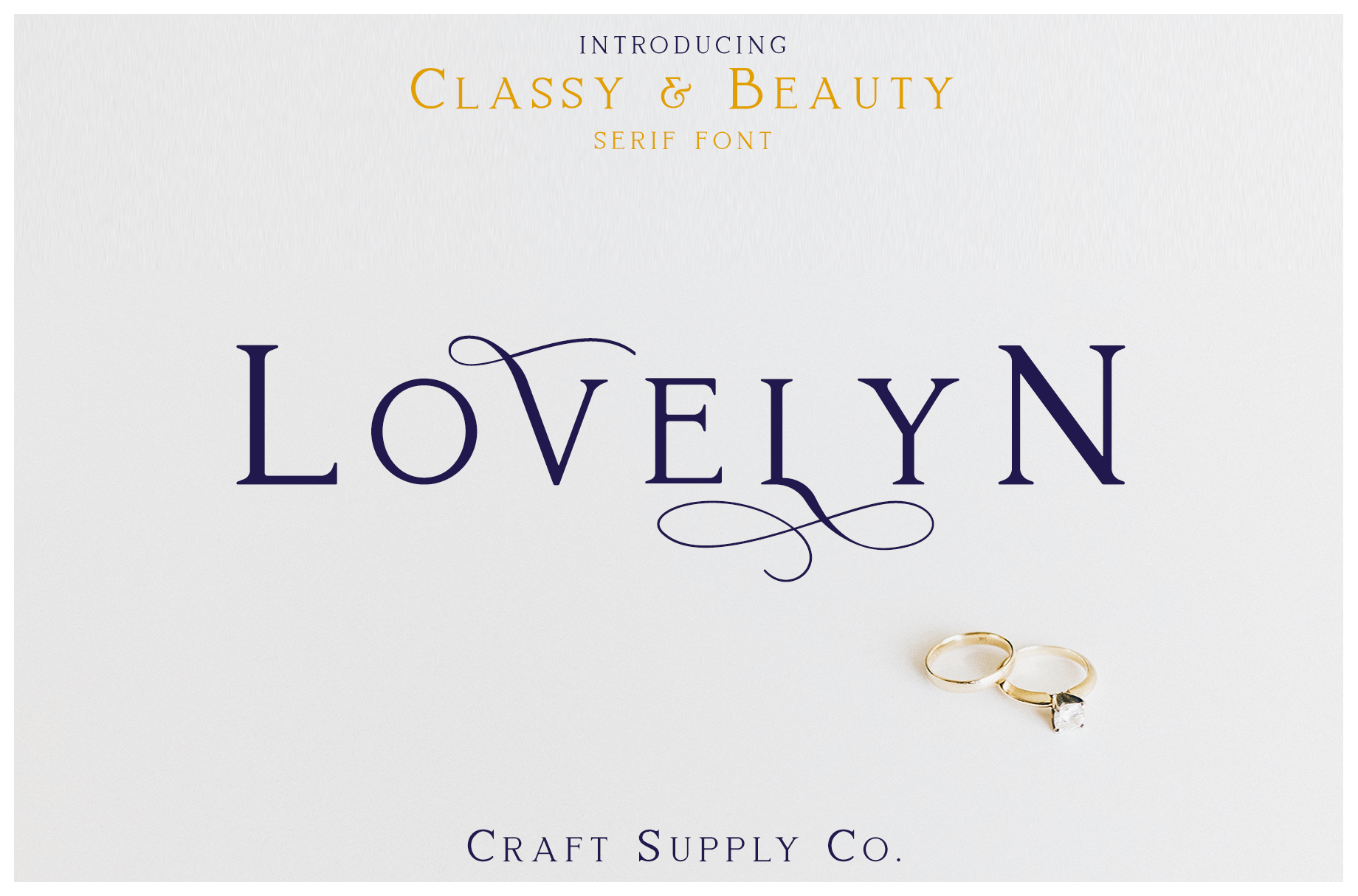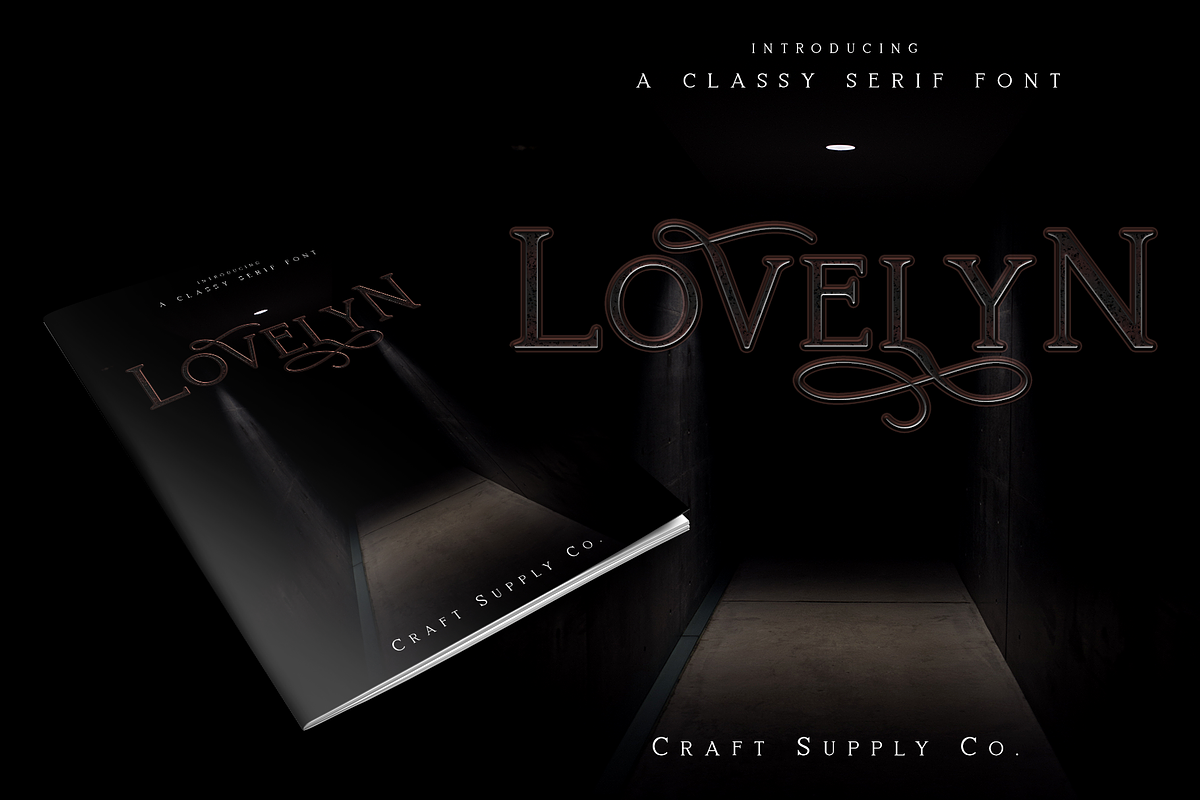
Lovelyn Font
Lovelyn Font is an elegant serif font that offers a wide range of possibilities, especially for a lot of alternative. Lovelyn Font offers an attractive tool for producing elegant decorative lettering, for example, for book covers or for posters and packaging.
You want to make a greeting card or a package design, or even a brand identity, craft design, any DIY project, book title, wedding font, pop vintage design, retro design or any purpose to make your art / design project look Elegant and Classy? Feel free to play with this font!
- Upper Case & Lowercase
- Standart Ligatures
No ligatures in this font set as it was advertised.